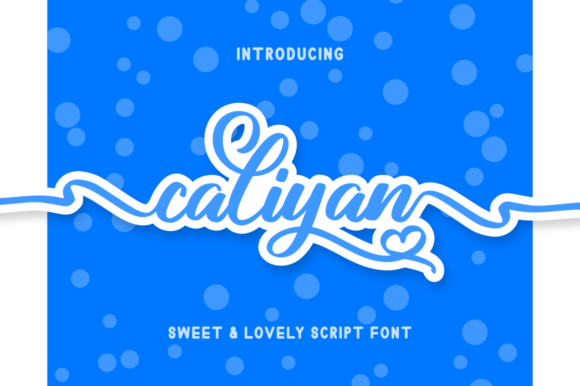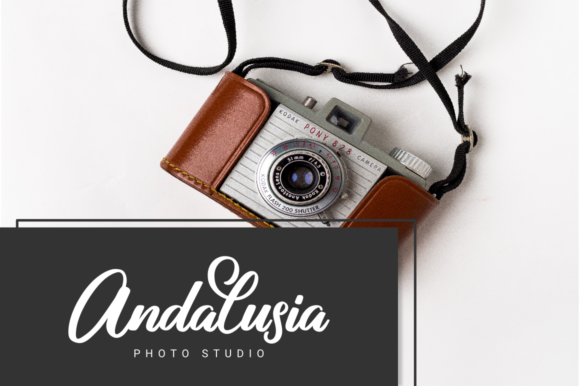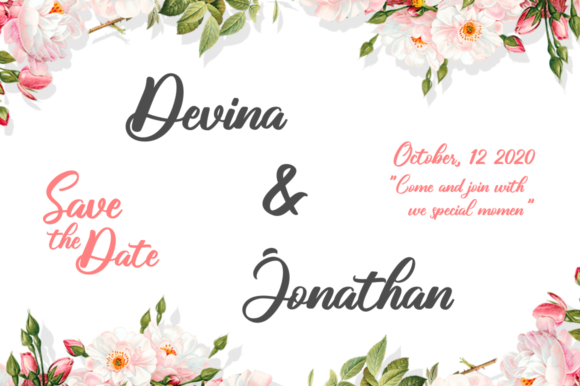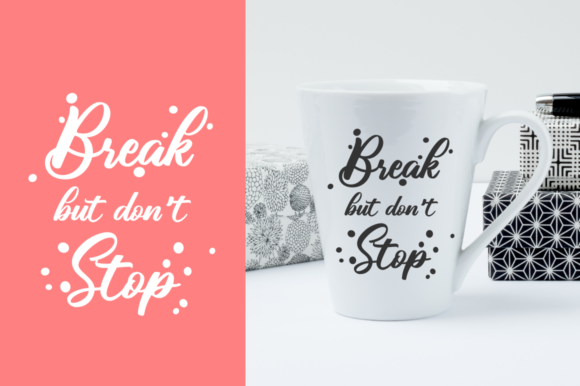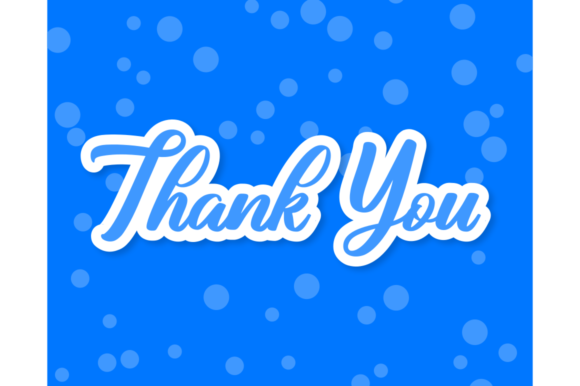
HomeScript FontsCaliyan Font Script Fonts Caliyan Font FacebookXPinterestWhatsApp Caliyan Font Poster 2 Caliyan Font Poster 3 Caliyan Font Poster 4 Caliyan Font Poster 5 About Caliyan Font Caliyan is sweet and lovely handwritten font with a quirky feel. Get inspired by its authentic charm. DOWNLOAD NOW People also explored Amelya Putry Font Harvestmoon Font Hindya Font Pawyer Font Love Brush Font Neology Wildrock Font Heritage Font Kinsley Font 534 0 TagsCaliyan Font Previous articleLimpung FontNext articleRextions Font LEAVE A REPLY Cancel reply Comment: Please enter your comment! Name:* Please enter your name here Email:* You have entered an incorrect email address! Please enter your email address here Website: Save my name, email, and website in this browser for the next time I comment. Personal Use Free Mallvirra Personal Use Free Read more about this font Grillin Personal Use Free Read more about this font Angola Beach Personal Use Free Read more about this font Girls Personal Use Free Read more about this font BLOG Modern Sans-Serif Fonts That Brands Love in 2025 In 2025, modern sans-serif fonts remain a top choice for brands looking to project clarity, professionalism, and... How to Cut Any Font on Cricut: Convert a Font to SVG (Free) The 10 Best Handwriting Fonts to Add Personality to Your Designs Exploring Font Trends